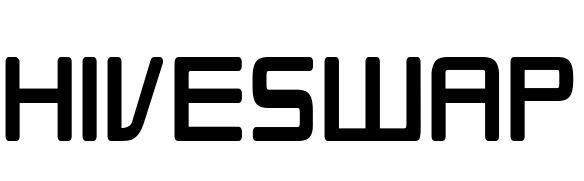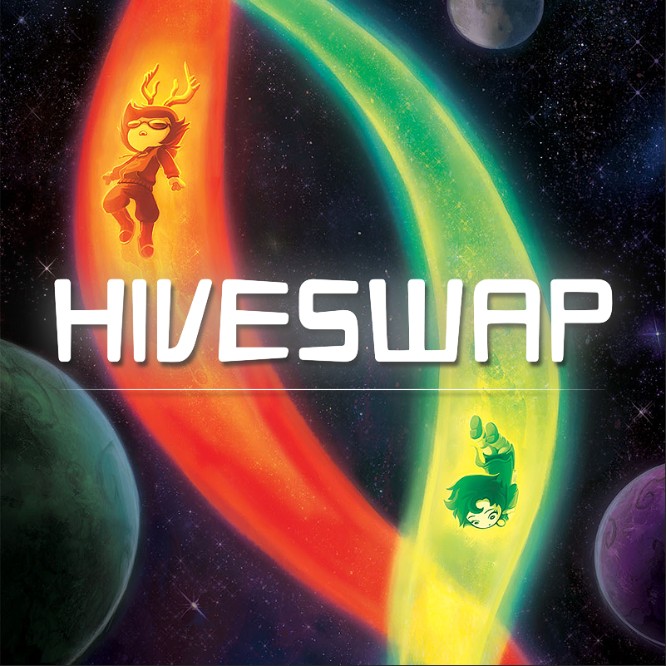
Hiveswap (video game) Font
Action & AdventureHiveswap is a point-and-click adventure game developed by What Pumpkin Studios and released in 2017. It is set in the universe of the popular webcomic series Homestuck and follows the story of a girl named Joey Claire as she is transported to the planet of Alternia—the planet where all trolls live.